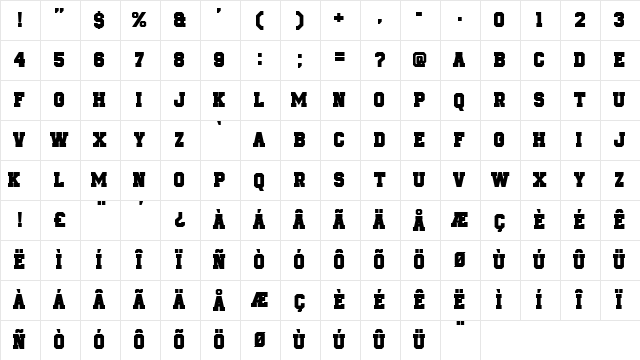
Complete Be True To Your School II Solid glyph index. Displaying only characters natively supported by Be True To Your School II Solid font.
Be True To Your School II is a composed and adaptable typeface that performs quietly and consistently across a wide range of design contexts.